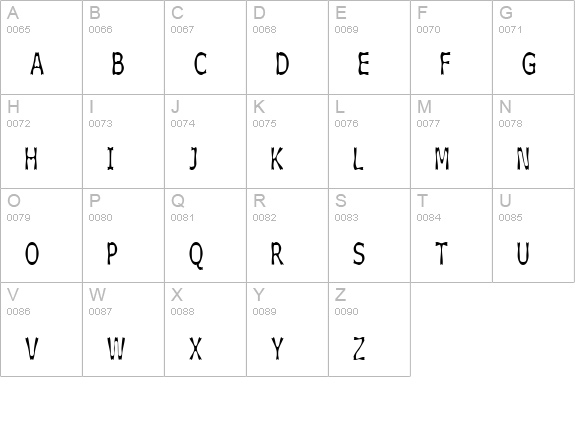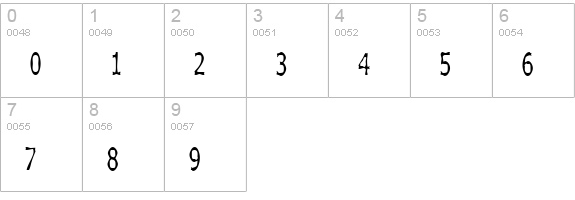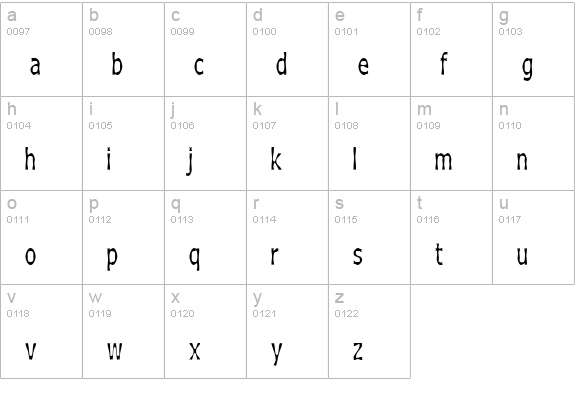
Boneribbon Tall Font Details
Boneribbon Tall font is a whimsical and charming typeface that exudes a playful and elegant vibe. Its tall and slender letterforms are adorned with decorative ribbons, adding a touch of sophistication to any design project. This unique font is perfect for creating eye-catching headlines, invitations, posters, and more. What makes Boneribbon Tall font even more appealing is that it is available for free download at FontsMarket.com. This means you can easily access this delightful typeface and use it in your creative projects without any cost. Don't miss out on the opportunity to add a touch of whimsy to your designs with Boneribbon Tall font!